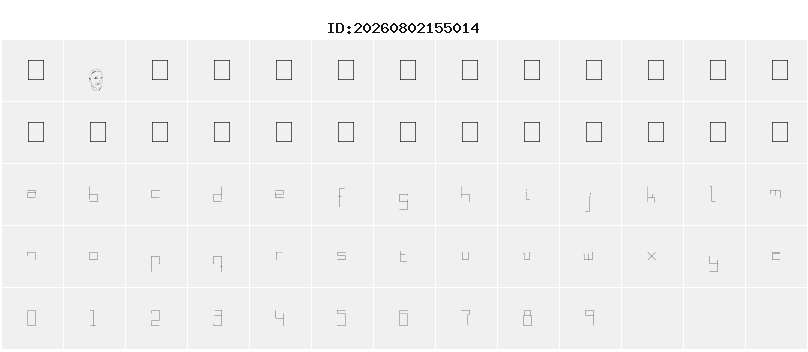
About nada-Regular.ttf
nada-Regular.ttf is a modern, elegant sans-serif font designed for ultimate readability and visual harmony. Perfect for branding, headlines, web design, and print materials.